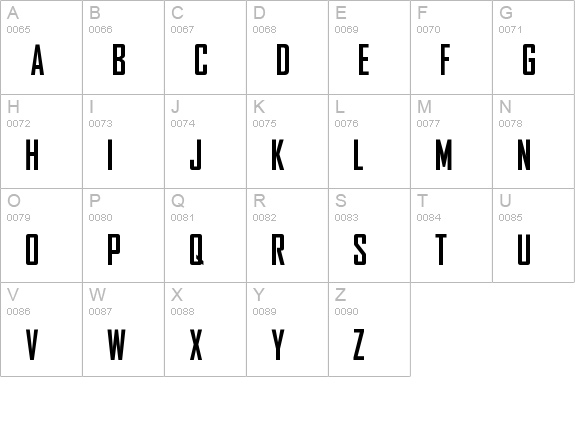
AgencyFB-BoldCondensed Font Details
The AgencyFB-BoldCondensed font exudes strength and professionalism with its bold and condensed design. This font is perfect for making a bold statement in your designs or adding emphasis to important information. Its sleek and modern appearance makes it versatile for a wide range of projects, from logos to headlines to branding materials. And the best part? This font is available for free download at FontsMarket.com! Now you can access this powerful font without any cost, making it a valuable addition to your design toolkit. Don't miss out on the opportunity to elevate your designs with the impactful AgencyFB-BoldCondensed font, now easily accessible for free at FontsMarket.com.